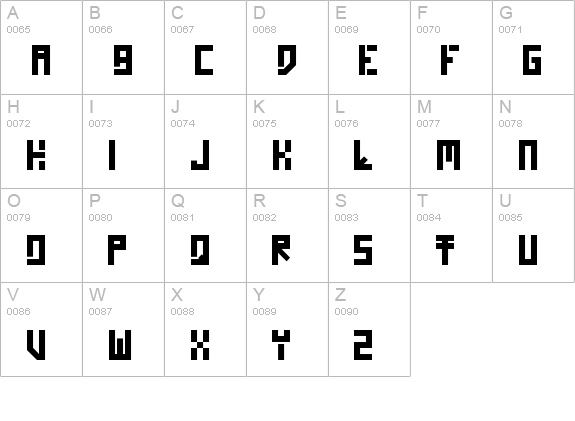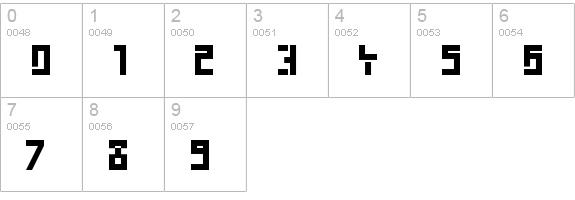
Homo Novis Font Details
Homo Novis font is a modern and stylish typeface that exudes sophistication and elegance. Its sleek lines and unique design make it perfect for a wide range of design projects, including logos, branding, and editorial designs. This font strikes the perfect balance between classic and contemporary, making it a versatile choice for both print and digital applications. What sets Homo Novis font apart is its seamless blend of tradition and innovation, making it ideal for those looking to make a bold statement with their typography. Whether used for headings, body text, or accents, this font is sure to captivate and engage viewers with its distinctive charm. The best part? Homo Novis font is available for free download at FontsMarket.com, allowing designers and creatives to access this premium typeface without breaking the bank. Don't miss the opportunity to elevate your designs with this exquisite font that effortlessly combines sophistication and modernity. Download Homo Novis font today and unleash your creativity like never before!